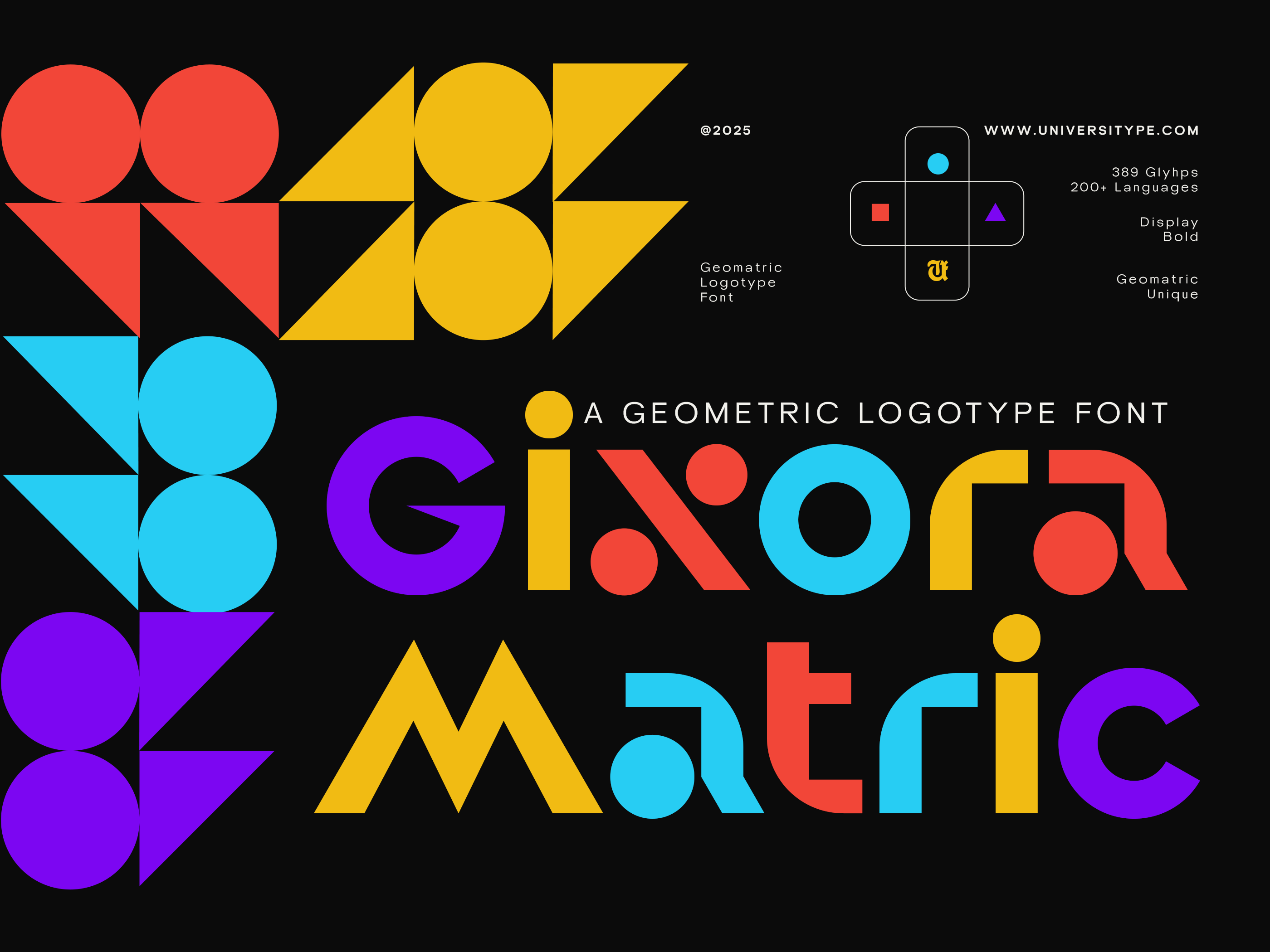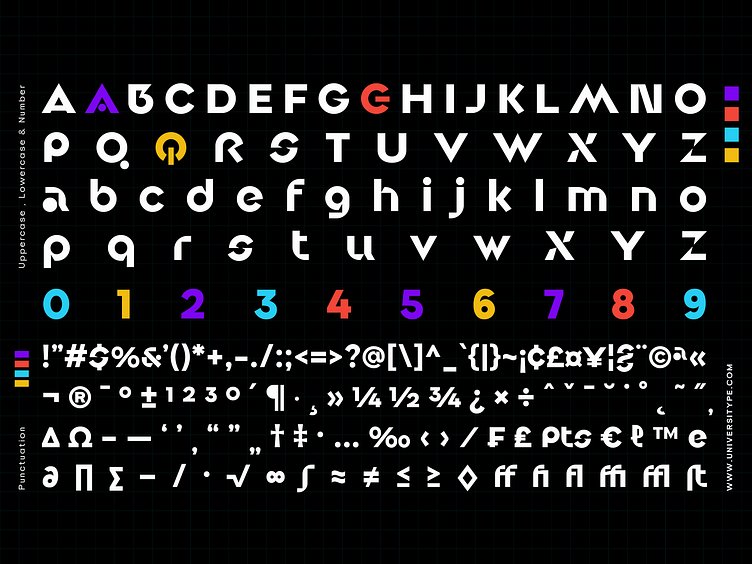
UT Gixora Matric - A Geometric Logotype Font
Experience UT Gixora Metric, a bold geometric logotype font inspired by modernist and Bauhaus typography. Perfect for logo design, marketing materials, and websites, UT Gixora Metric supports over 200 languages with 389 glyphs for a truly global impact. Elevate your brand with a unique and playful typeface that stands out.